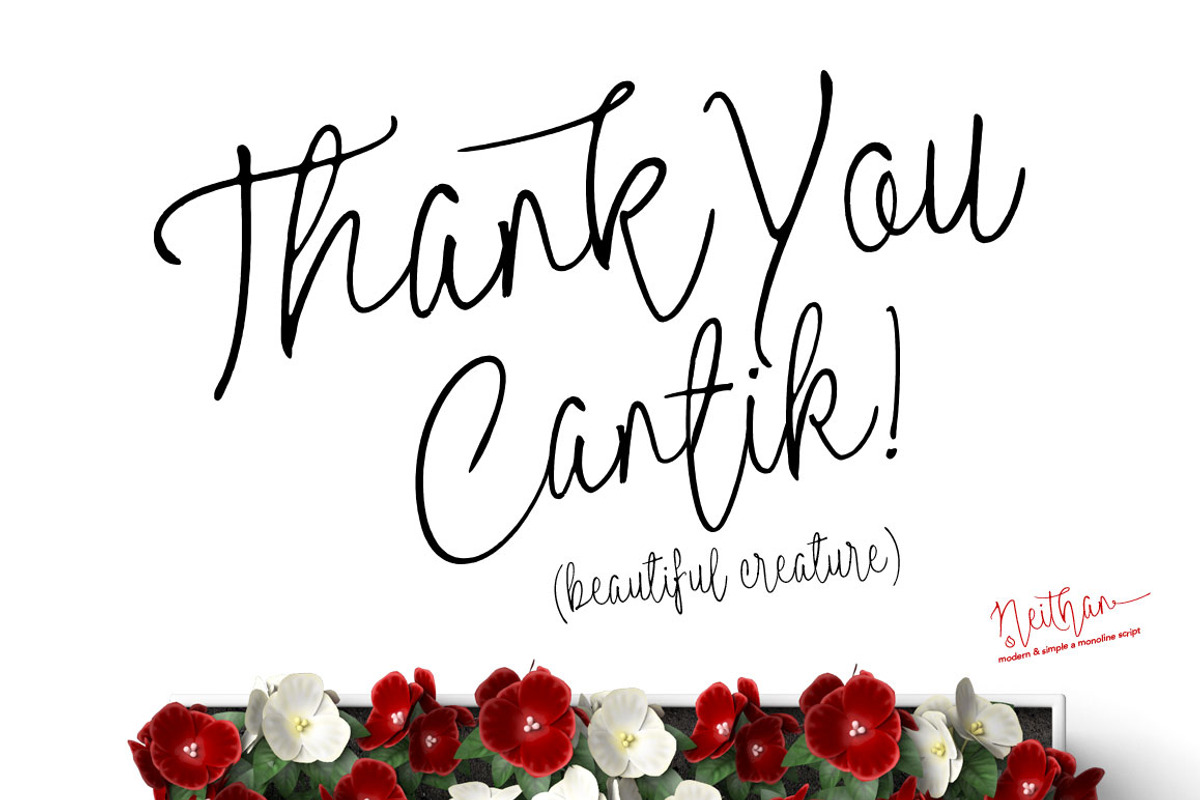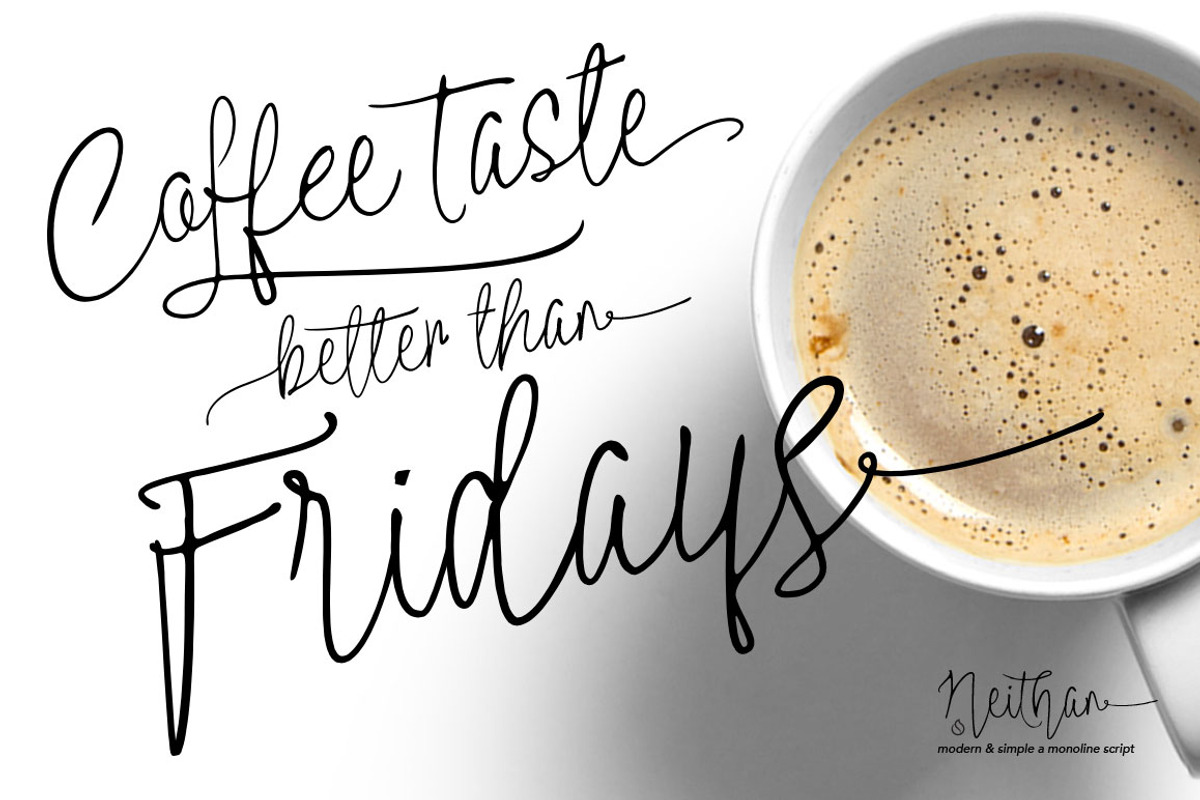
Neithan Monoline Script
Hi all, I introduce a new font in 2016. Neithan. monoline script with modern style, light and minimalist. made with spontaneous and candid flow by conscience.
Neithan present to complete the design and your dreams to inspire us all. very suitable for logos, quotes, t-shirt design, poster, blogs header, cards, or anything you want.
Neithan modern monoline script features 406 glyphs and alternate character contain with opentype features. Stylistic alternates, Swash Alternates, Ligature and more. You can access all those alternate characters by using OpenType savvy programs such as Adobe Illustrator, Adobe InDesign and CorelDraw X6-X7.
- Contextual Alternates
- Discretionary Ligatures
- Multilingual Support: Albanian, Basque, Breton, Chamorro, Danish, Dutch, English, Faroese, Finnish, French, Frisian, Galician, German, Icelandic, Italian, Malagasy, Norwegian, Portuguese, Spanish, Swedish.